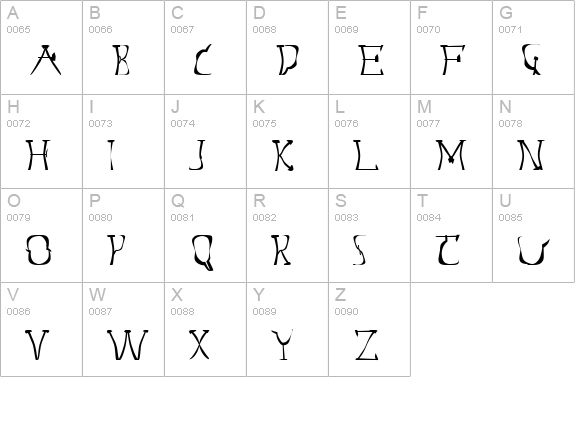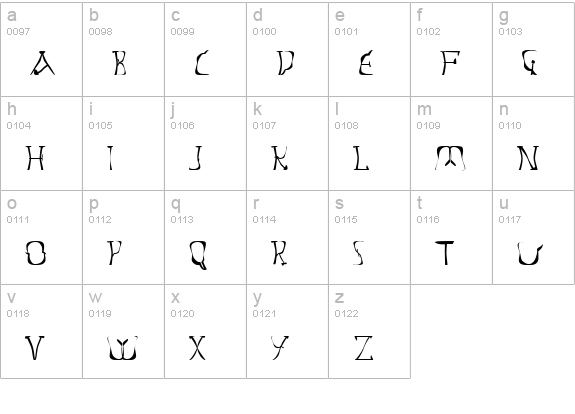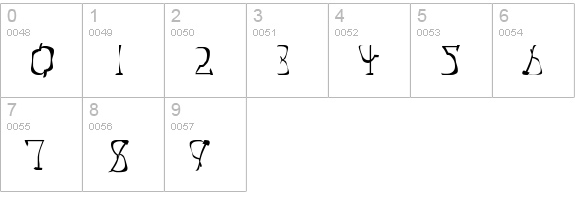
Walpurgis Font Details
Walpurgis font is a stunning and versatile typeface that exudes elegance and sophistication. With its intricate details and unique flourishes, this font is perfect for adding a touch of luxury to any design project. The graceful curves and sharp angles of Walpurgis font make it a standout choice for logos, branding, invitations, and more. The best part? Walpurgis font is available for free download at FontsMarket.com. Whether you're a designer looking to enhance your creations or a business owner seeking a fresh look for your brand, Walpurgis font is sure to impress. Don't miss out on this opportunity to elevate your designs with this exquisite font - download Walpurgis font today and let your creativity shine!